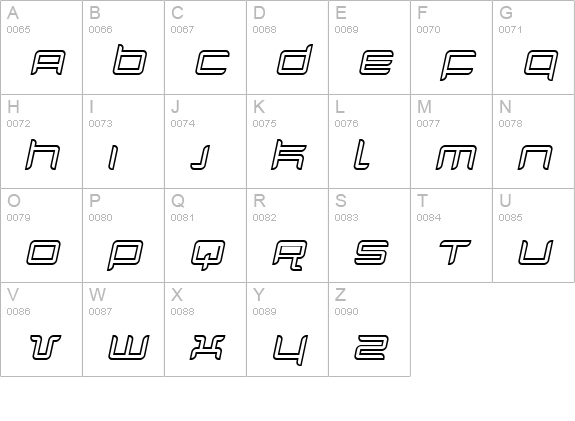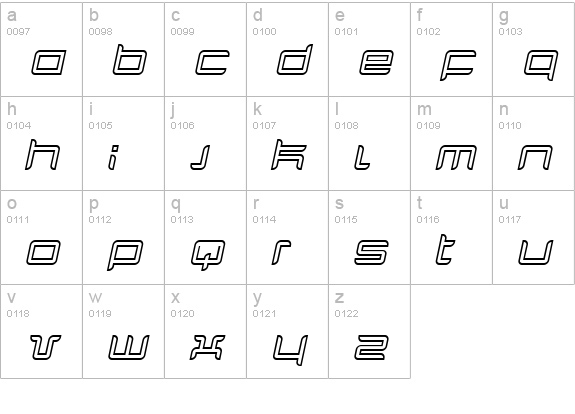
Quarx Outline Italic Font Details
Quarx Outline Italic is a distinctive, italic variant in the Quarx typeface family \xE2\x80\x94 well suited to design and typography projects.
Quarx Outline Italic is a stunning and versatile font that adds a touch of elegance and sophistication to any design project. With its sleek and slender lines, this font exudes a sense of modernity and style. The italicized form of Quarx Outline adds a subtle slant, lending an artistic flair to your text. This font is perfect for a wide range of applications, including logos, branding, headlines, posters, invitations, and more. Its unique and eye-catching design will captivate your audience and leave a lasting impression. Whether you're designing for a corporate setting or a creative project, Quarx Outline Italic will effortlessly elevate your work to new heights. One of the best things about Quarx Outline Italic is that it is free. You read that right - this incredible font is freely available to download at FontsMarket.com. Now, you can enhance your designs without breaking the bank. Take advantage of this opportunity to access a high-quality font that will truly make your creations stand out. Crafted with precision and attention to detail, Quarx Outline Italic offers a wide range of characters, including uppercase letters, lowercase letters, numbers, punctuation marks, and special symbols. This extensive character set ensures that you have the flexibility to express your creativity and bring your design visions to life. So why wait? Download Quarx Outline Italic from FontsMarket.com today and unlock a world of possibilities. Whether you're a professional designer or a passionate hobbyist, this font will become an invaluable asset in your creative toolkit. Enhance your projects, impress your clients, and make a lasting impact with Quarx Outline Italic.